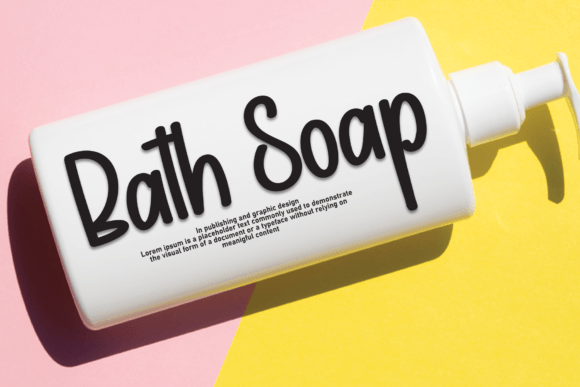
Happy Saturday Font Font
Happy Saturday is a lovely and timeless handwritten font. It is the best choice for creating eye catching logos, branding and quotes. Every letter has a unique and beautiful touch, which will make your design come alive!